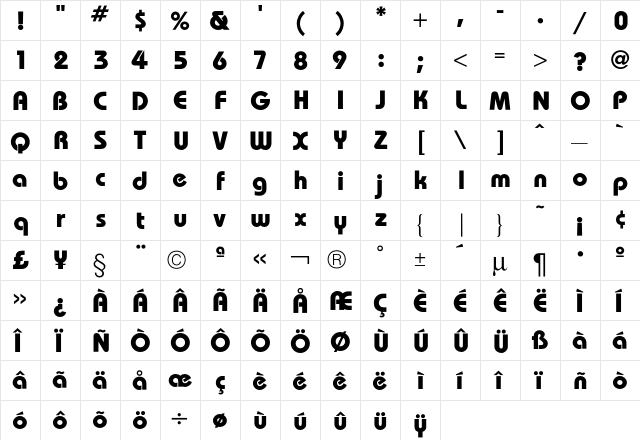
Bauhaus Bold
Design Context for Bauhaus Typeface
Bauhaus is a composed and adaptable typeface that performs quietly and consistently across a wide range of design contexts. Its bold stroke weight gives it real presence on the page.
Pro Tip: Pair Bauhaus with a font of contrasting weight or personality to build a more expressive typographic hierarchy.